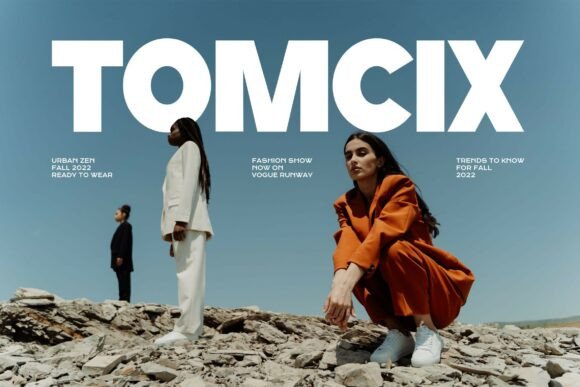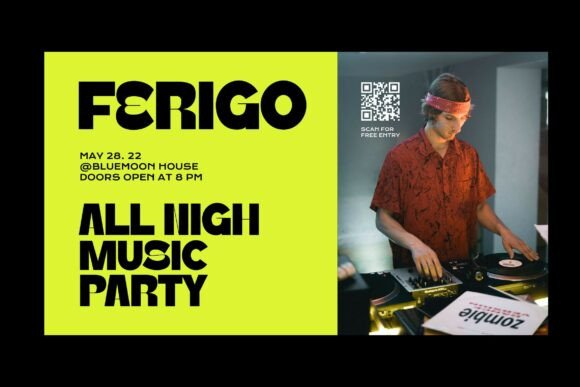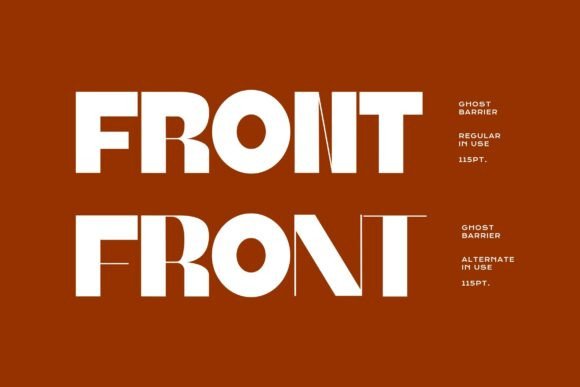
Introduction to Ghost Barrier Font
Ghost Barrier is a powerful and futuristic display font designed for maximum visual impact.
With its sharp curves, geometric cuts, and modern alternates, it delivers a contemporary yet experimental aesthetic that commands attention The font’s design is built on a foundation of strong, geometric shapes, but with a distinctive twist.